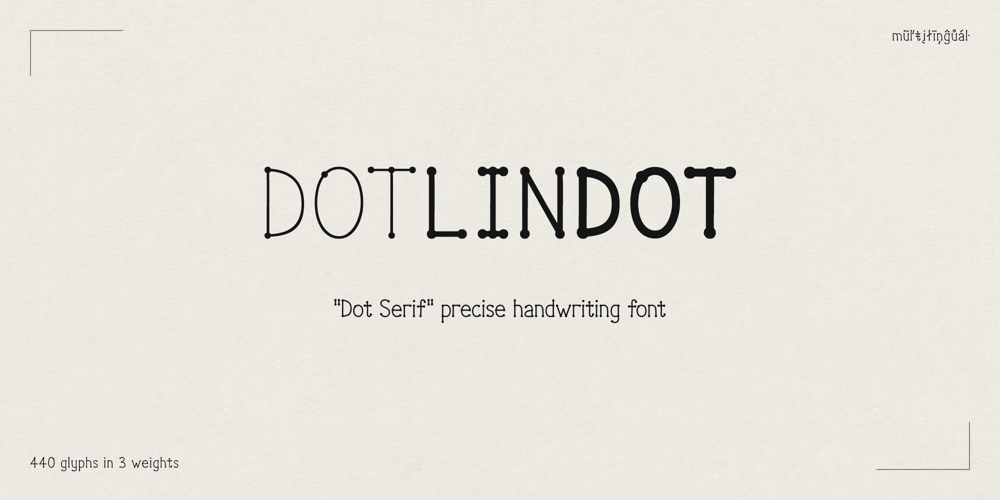
DotLinDot Font Family was designed by Karel Brejcha and published by Pankabre. DotLinDot contains 3 styles and family package options. Accurate handwritten font with dots and lines. In small sizes it looks especially good in the texts of history books.